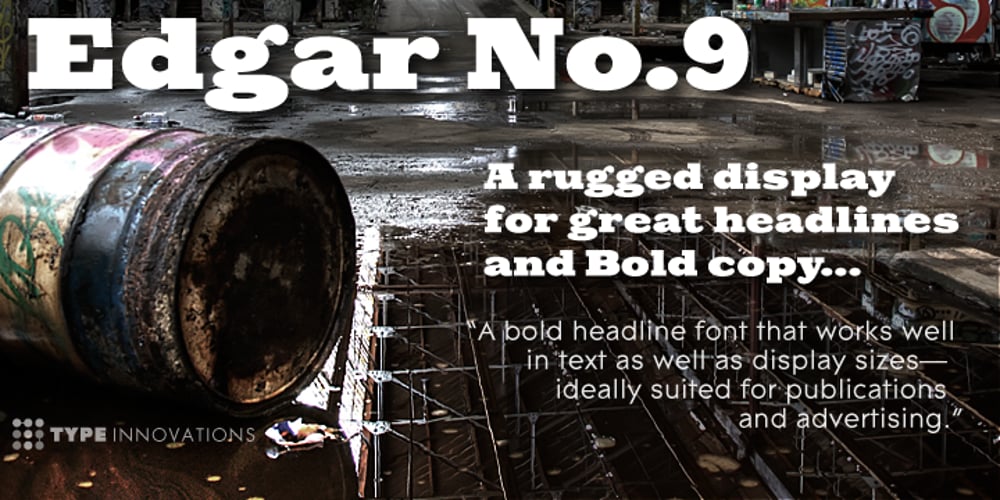
Edgar No 9
Edgar No 9 font
Edgar No 9 Font Family was designed by Alex Kaczun and published by Type Innovations. Edgar No 9 contains 2 styles and family package options. Edgar No. 9 is an original design by Alex Kaczun. Edgar No. 9 is a derivative work based on his Big Boy typeface series. It was designed specifically for display headlines, logotype, branding and similar applications. Primarily a display, this extremely versatile font has generous proportions, large counters and loose fitting which also allow the font to work well across a wide range of text sizes. Edgar No. 9 is a heavy baroque slab serif and although it shares the underling skeleton of ‘Big Boy’, it is a much more compact in overall proportions and spacing. A handsome bold headline font that works well in text as well as display sizes—ideally suited for publications and advertising. Alex plans to expand the font series to include a large range of weights along with corresponding italics numbering 1 thru 9, as well as, true small capitals and old style figures. Distressed version(s) will also be available in upcoming releases. Stay tuned, more to come soon. The large Pro font character set supports most Central European and many Eastern European languages.variations to expand this ‘hip’ new font series. Groovin’ baby.